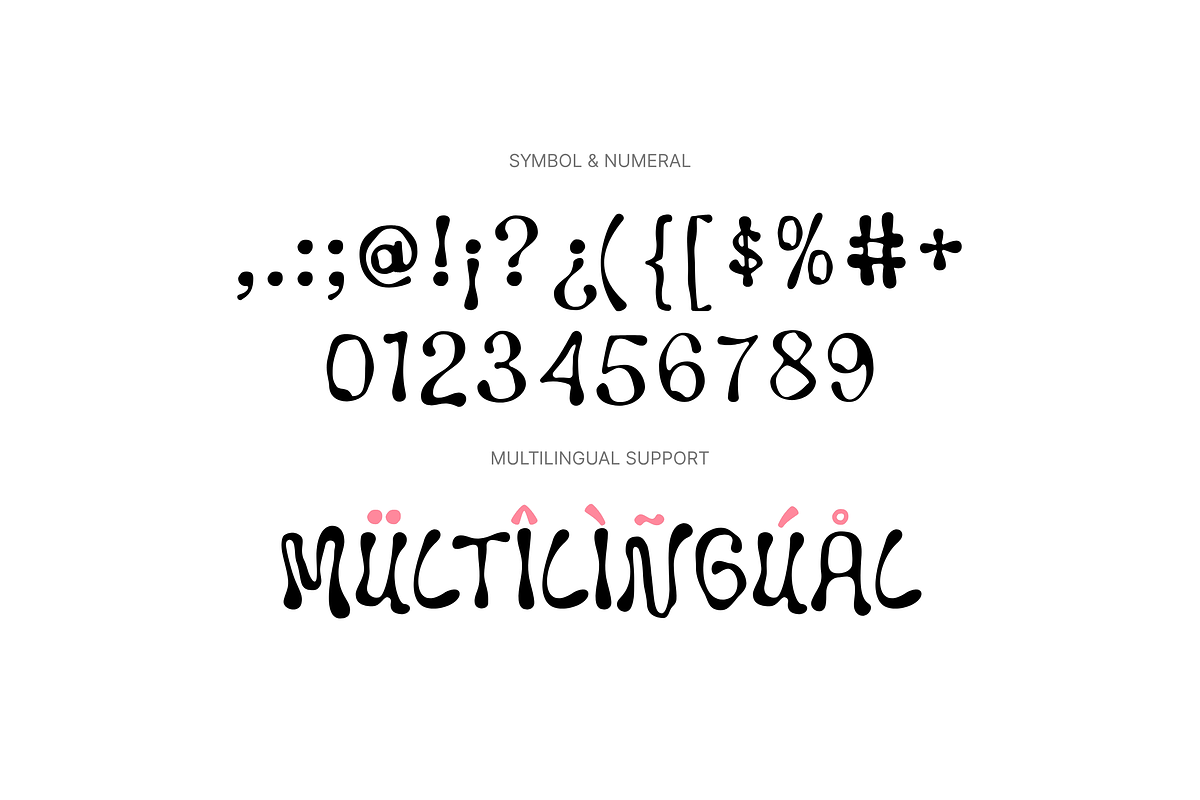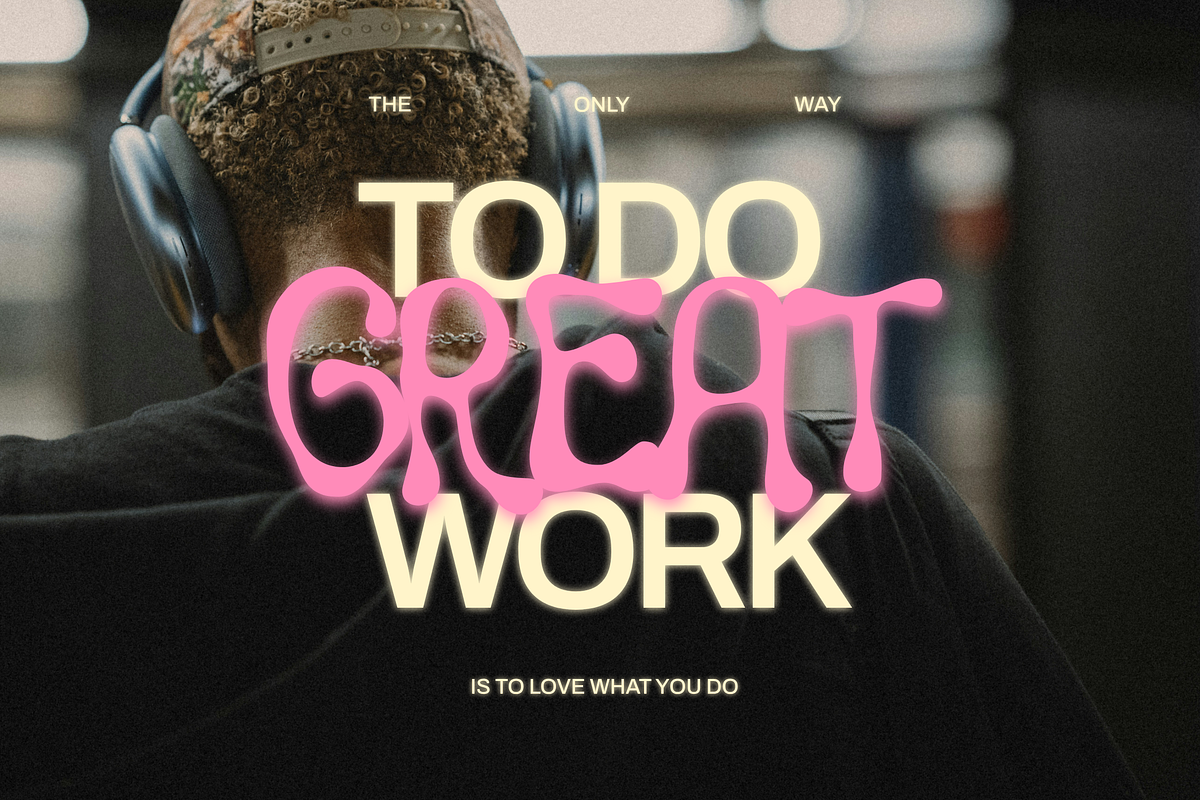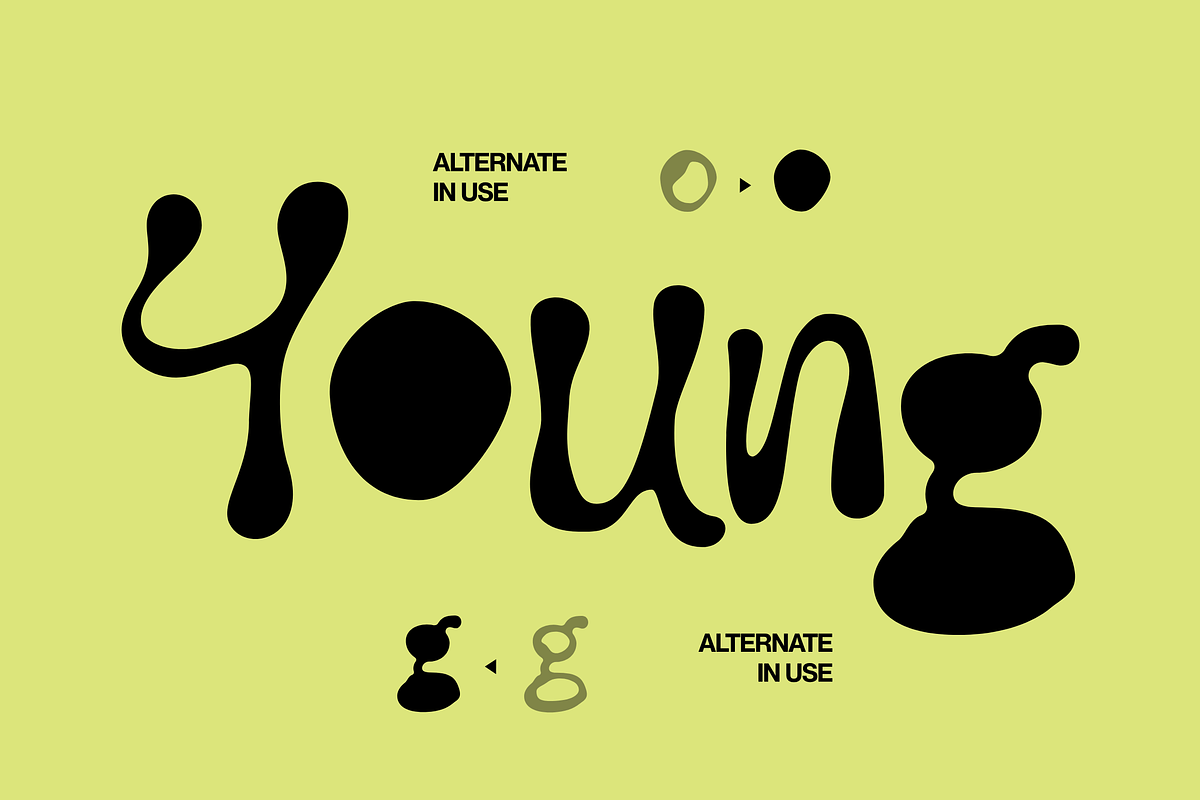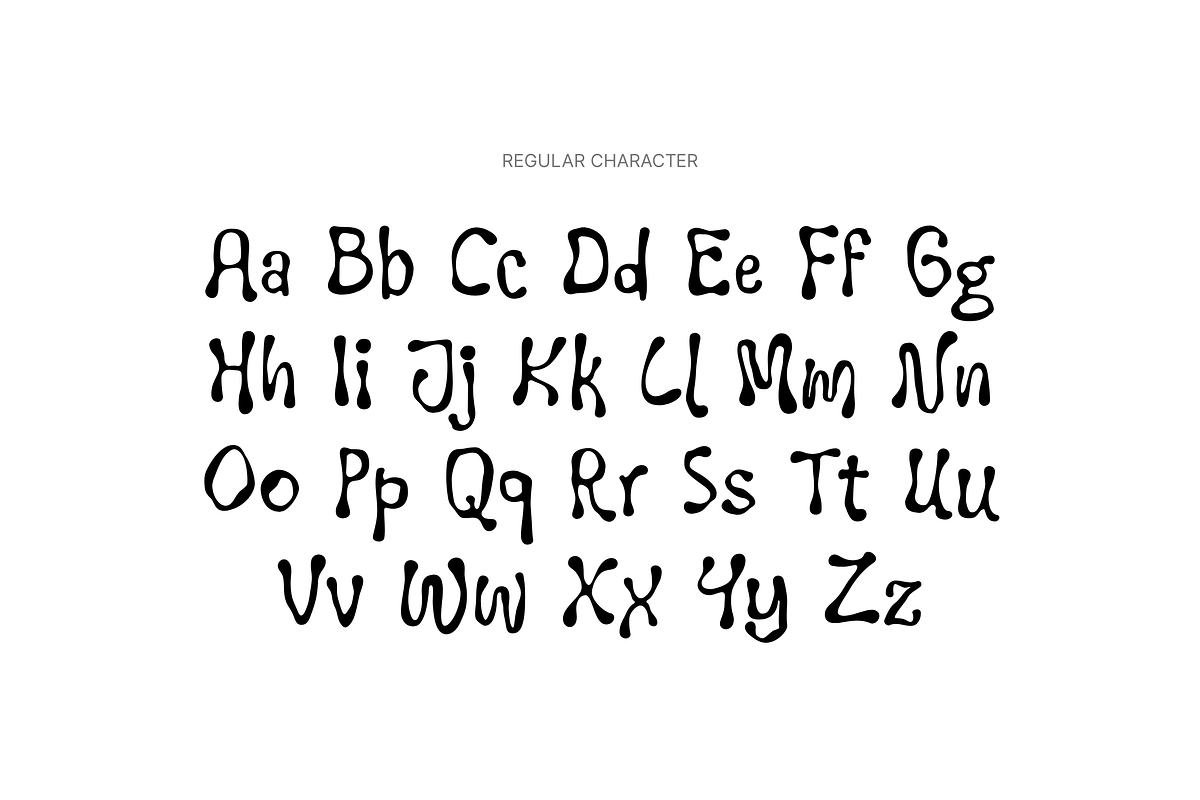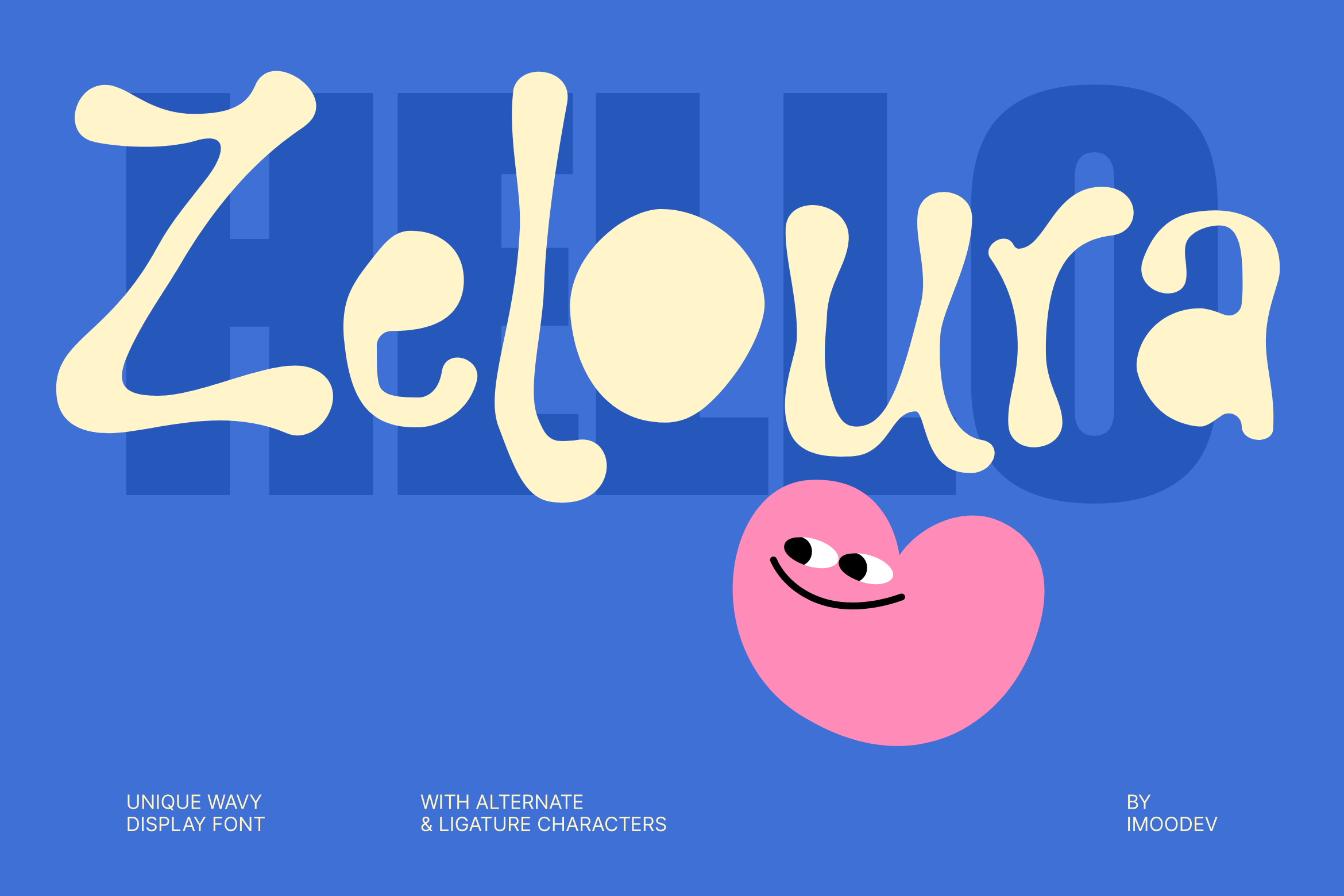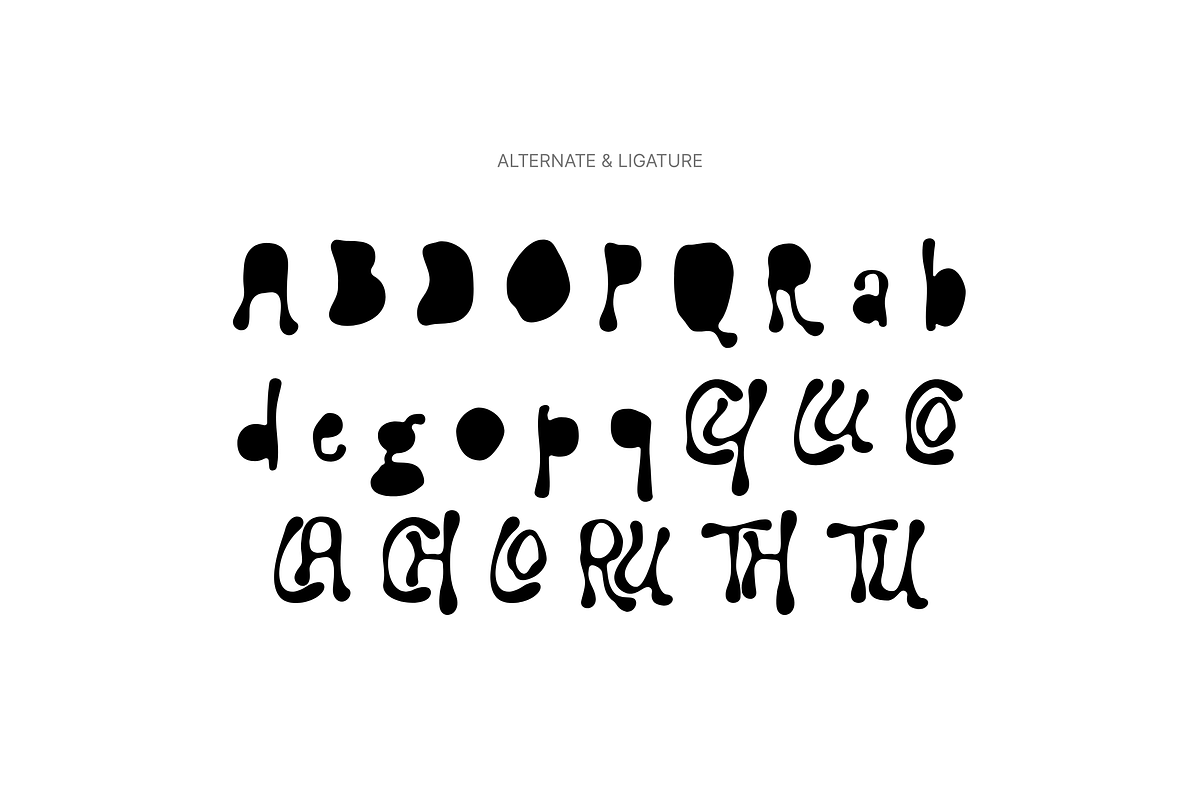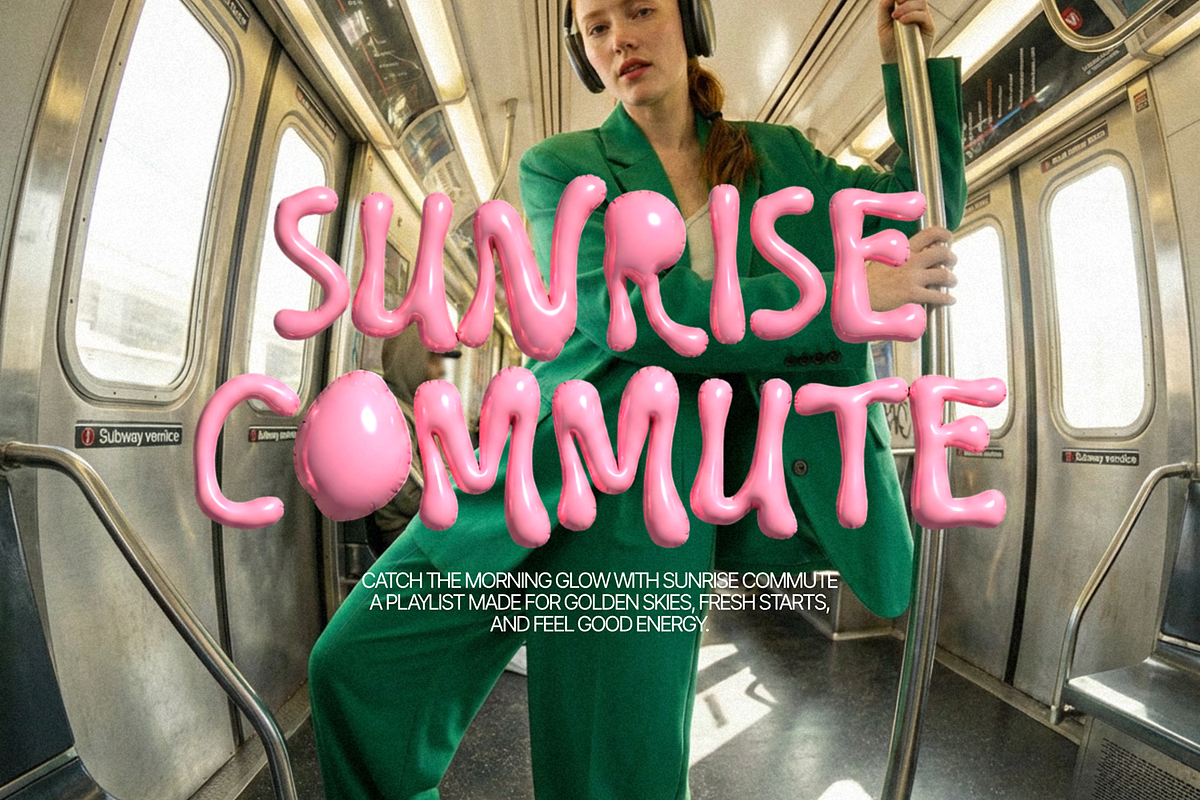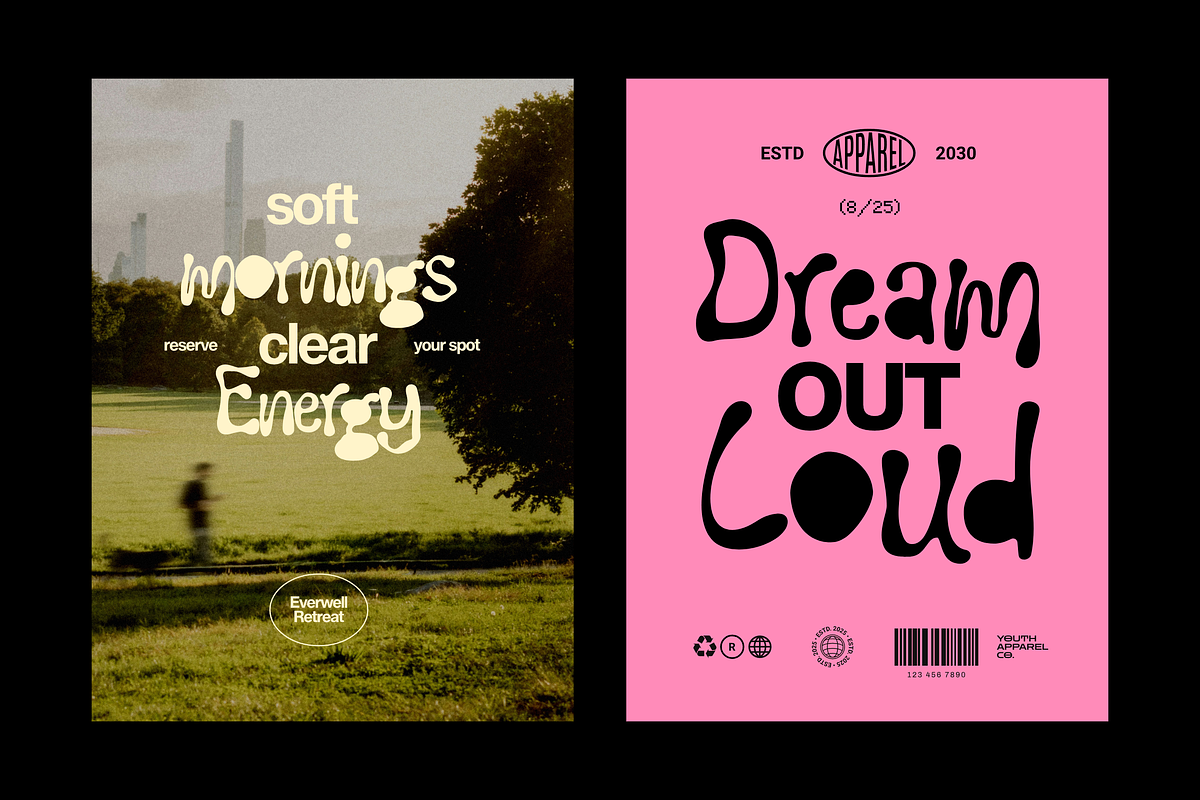
Zeloura - Liquid Wavy Font
Catch the ultimate vibe with Zeloura, a delightfully eccentric, liquid inspired wavy font designed to inject pure energy and personality into your creative projects. Zeloura breaks all the traditional rules of typography with its fluid, melting lines and playful, top heavy distortion.
Zeloura features wavy letterforms with a hand drawn retro aesthetic. Each character is crafted with organic curves, irregular contours, and bubbly silhouettes that evoke a fun and carefree personality. The font includes a full set of uppercase and lowercase letters, numerals, punctuation, multilingual support, and a wide range of alternate characters and ligatures for creating unique typographic compositions.
Zeloura ideal for posters, branding, packaging, album cover (indie, pop, lo-fi, or electronic album art), merchandise, headlines, and youth oriented designs. Its bold and unconventional shapes add warmth, energy, and a nostalgic 70s psych rock, trendy Y2K streetwear aesthetics, or modern 3D balloon text styles, this font morphs effortlessly to fit your vision.
Uppercase and Lowecase Characters.
Numerals and Punctuations.
Alternates and Ligatures.
Multilingual Support.